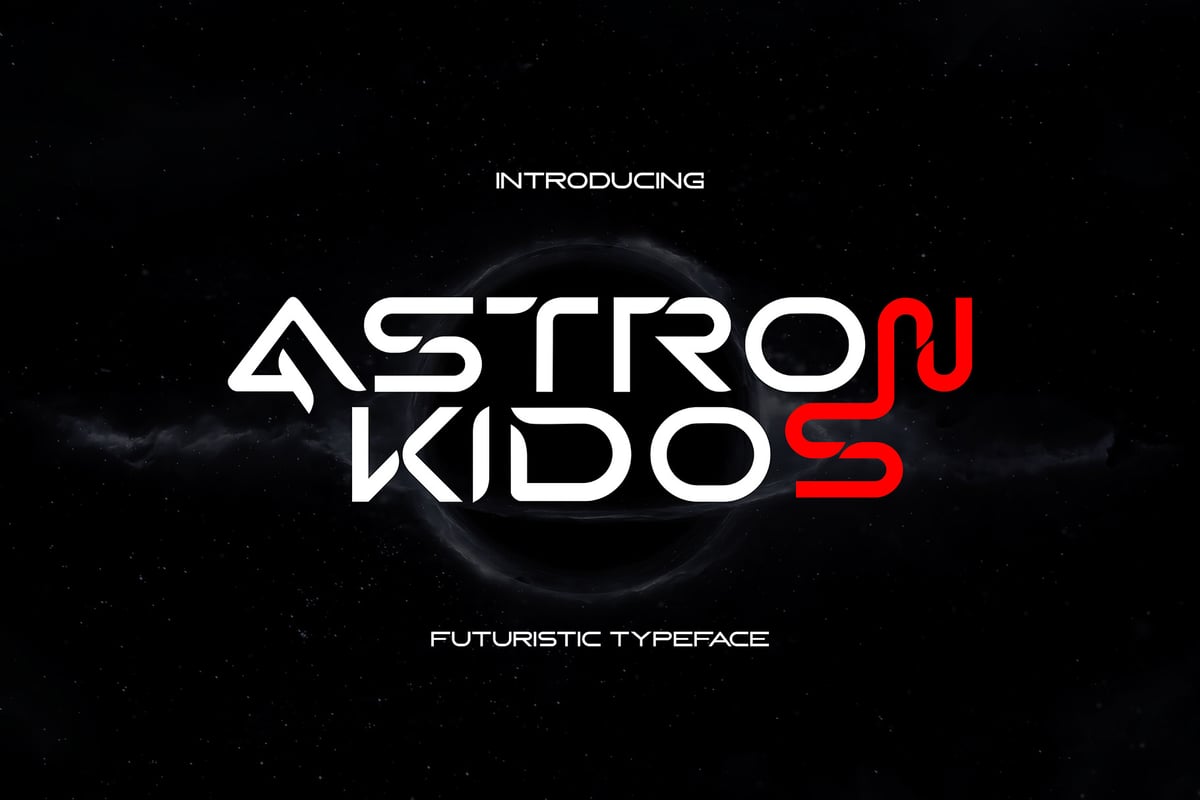
Astron Kidos Bold
Step into the future with Astron Kidos, a sleek and clean futuristic font designed to elevate modern design projects. Its sharp lines and contemporary aesthetics bring a sense of innovation and minimalism, perfect for creators looking to embrace the essence of tomorrow.